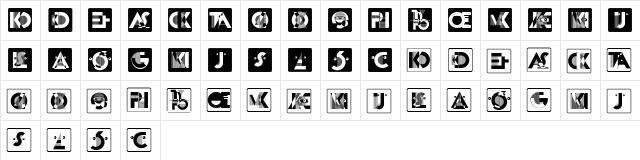
KassandrasMonogramme Regular
Design Context for KassandrasMonogramme Typeface
KassandrasMonogramme uses fixed-width spacing throughout, giving it the structured, systematic character associated with coding environments and technical documentation.
A natural fit for code editors, technical documentation, developer-focused branding, and terminal-inspired UI.